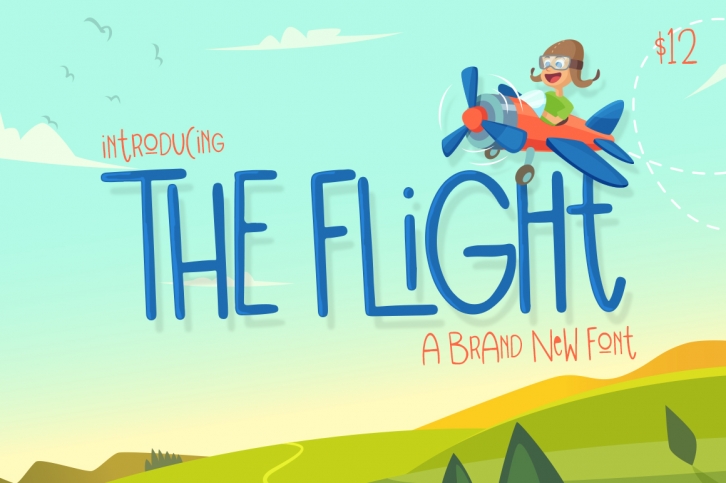
The Flight is a beautiful font that was designed by Salt and Pepper Designs. It's a great choice for designers and creatives who need such a font. It was released on March 23, 2019 and the file size is 14.3 MB. The Flight may give a more youthful, expressive and casual look to your project. It is a very beautiful, refined, elegant, and high-quality font.